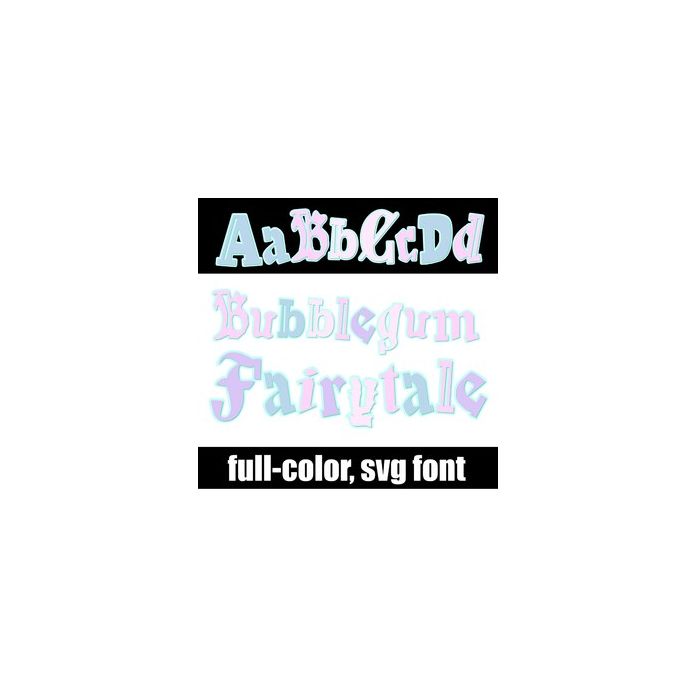
This full-color font features calligraphy lettering in different styles in a pastel color palette. There is an alt case w/ additional colors you can access through your system or Silhouette's glyph map.